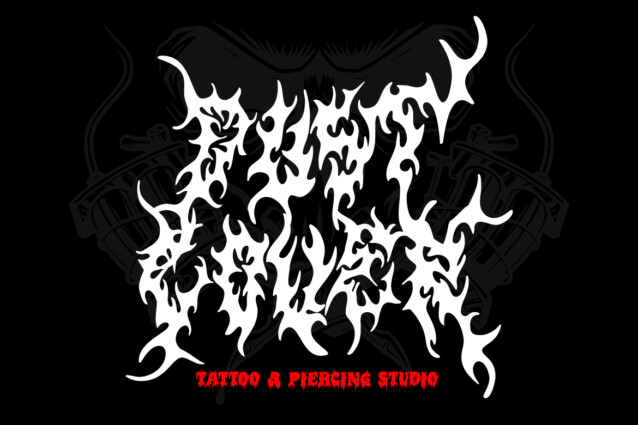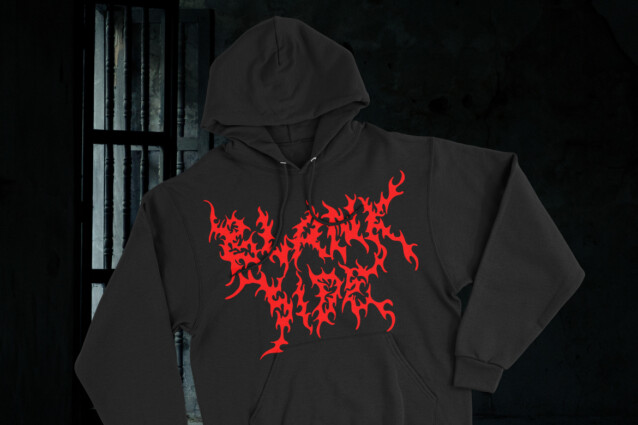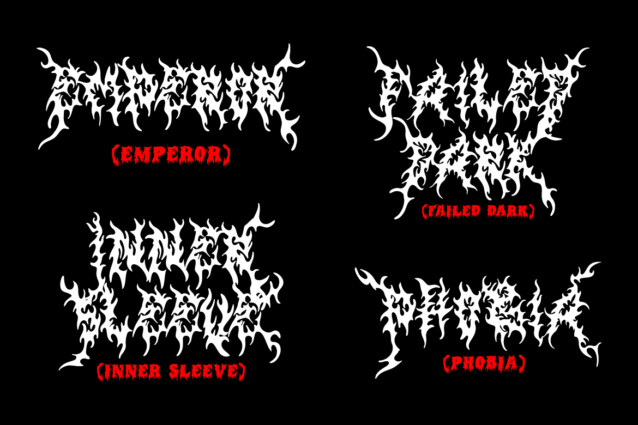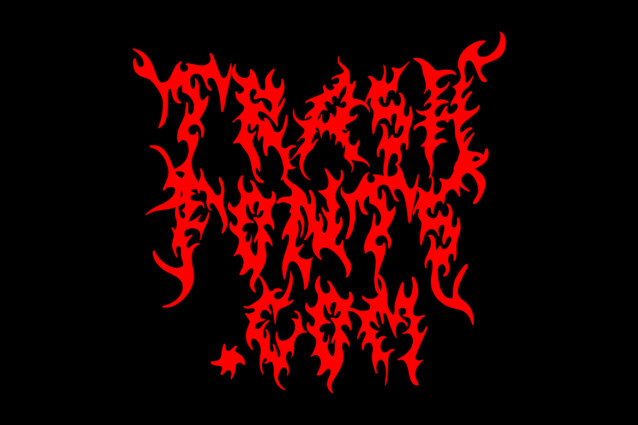
Trash Grisly Font is a typographic powerhouse designed to infuse your designs with a raw, brutal, and unrelenting aura. With its angular, razor-sharp letterforms, this font is perfect for merchandise, logos, posters, and more. Unleash the dark, intense energy of death metal, ensuring your creations leave an indelible mark. Elevate your designs with “Trash Grisly” and unleash the power of the extreme.